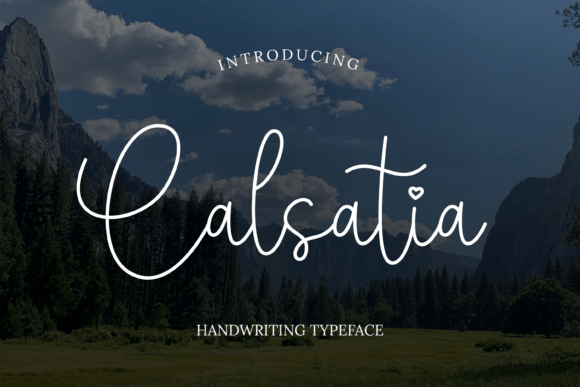
Introducing Calsatia, the new modern handwritten font that will give your designs a touch of elegance and personality.
Indulge in the captivating beauty of Calsatia, where each stroke flows effortlessly, like a river of ink dancing across the page. Experience the allure of an authentic handwritten font, capturing the essence of penmanship in every letterform. Let your designs blossom with the timeless charm of Calsatia, a font crafted with love to bring your creative visions to life.
Calsatia is more than just a font; it's an invitation to unleash your imagination. Whether you're crafting heartfelt wedding invitations, sending thoughtful thank-you notes, or designing captivating marketing materials, Calsatia will become your trusted companion. Its graceful swashes and delicate curves add a touch of sophistication to any project, leaving a lasting impression on your audience.
With Calsatia, you'll find endless possibilities for self-expression. Dive into the world of typography and discover the joy of creating designs that resonate with your unique style. Let Calsatia be the brush that colors your creative canvas, turning your words into works of art.
Don't settle for ordinary fonts that blend into the background. Embrace the extraordinary with Calsatia, and let your designs shine with a brilliance that captivates and inspires.